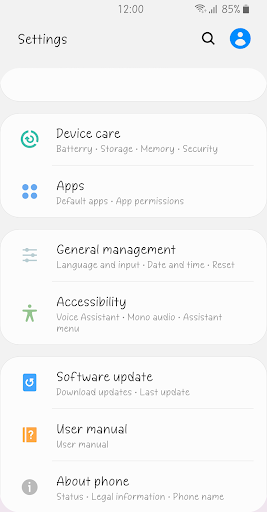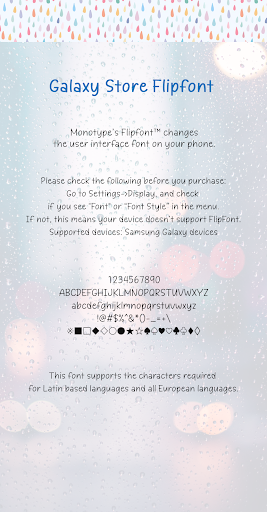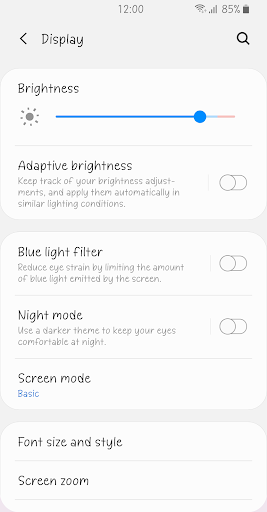
Fine Raindrop
This font features an even thickness with a cute handwriting style.
The comfortably written form and natural structure leave a pleasant impression.